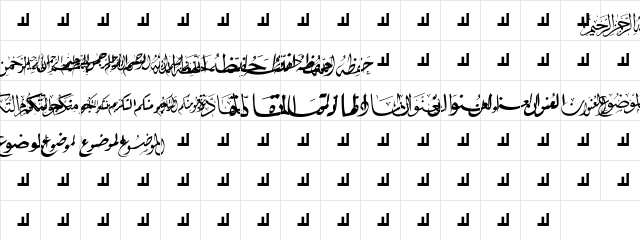
Mcs Letter Word 5 Normal
Design Context for Mcs Letter Word 5 Typeface
Mcs Letter Word 5 is a composed and adaptable typeface that performs quietly and consistently across a wide range of design contexts.